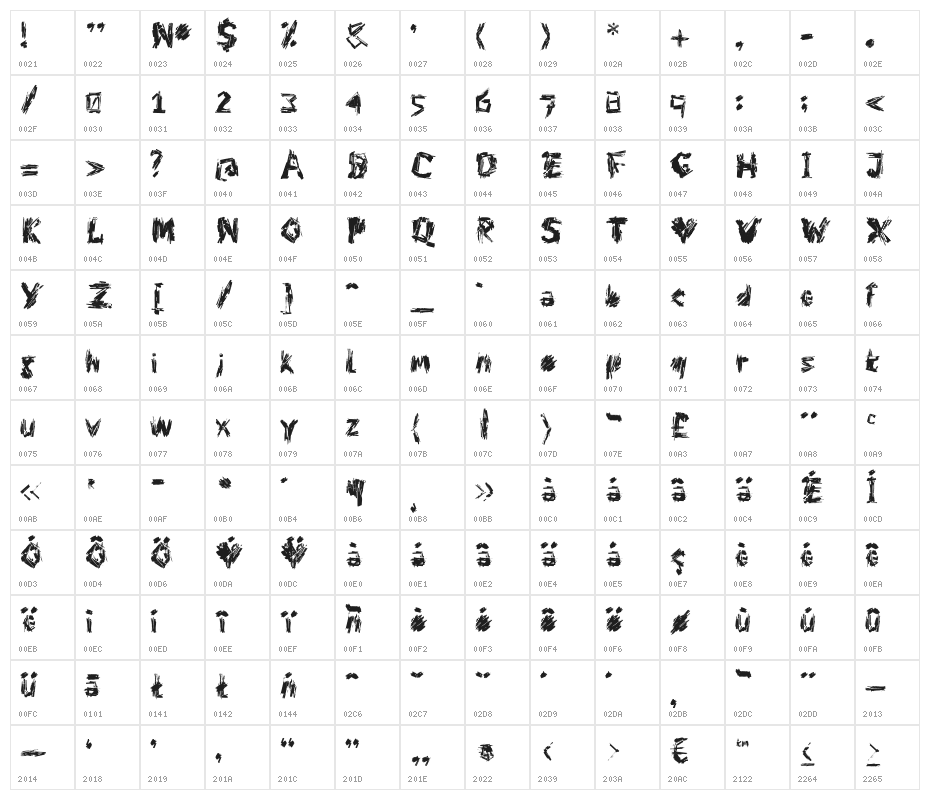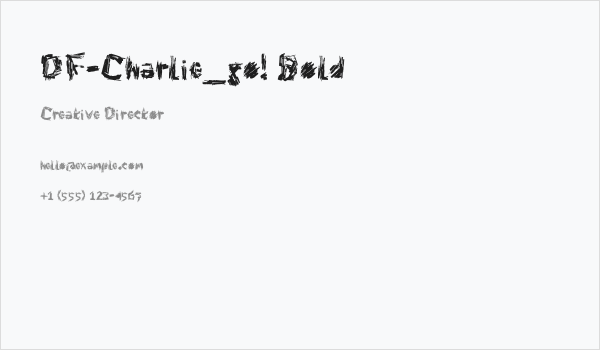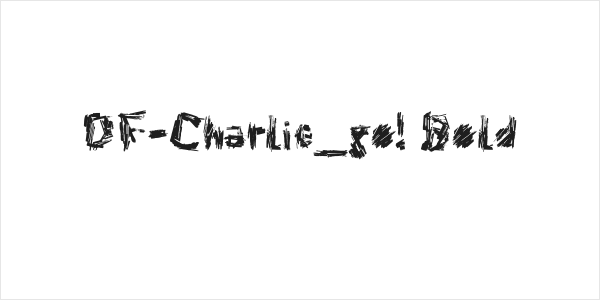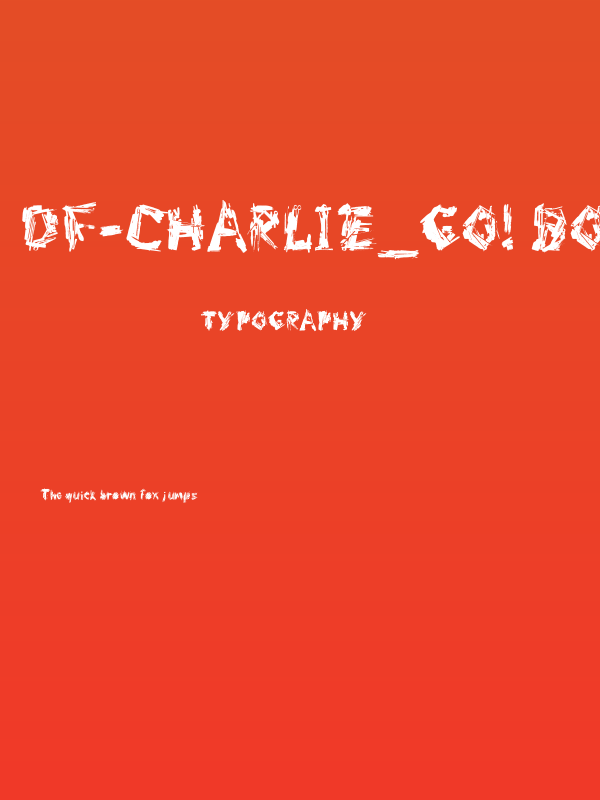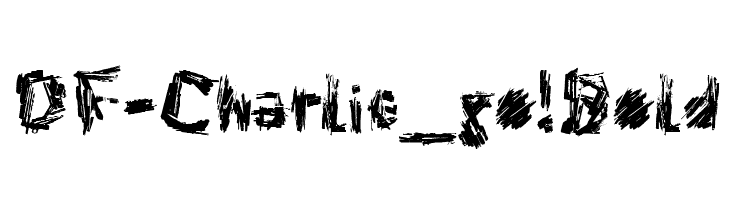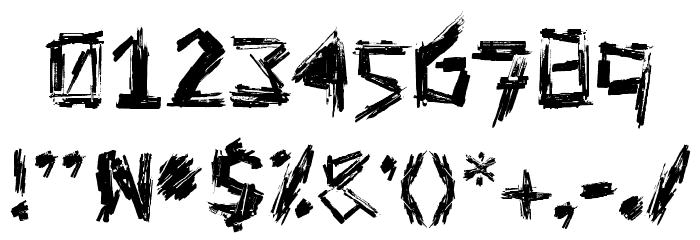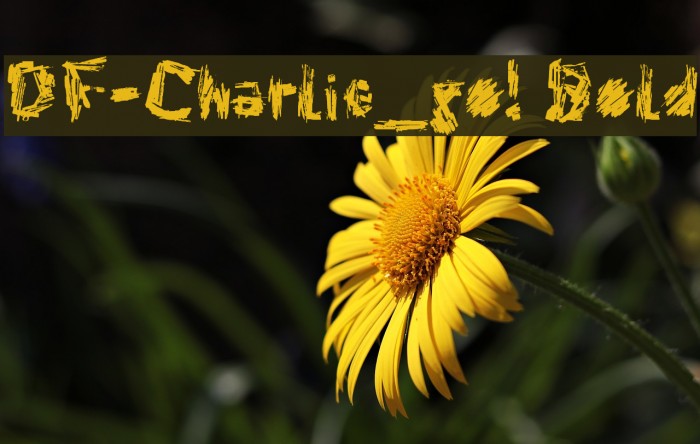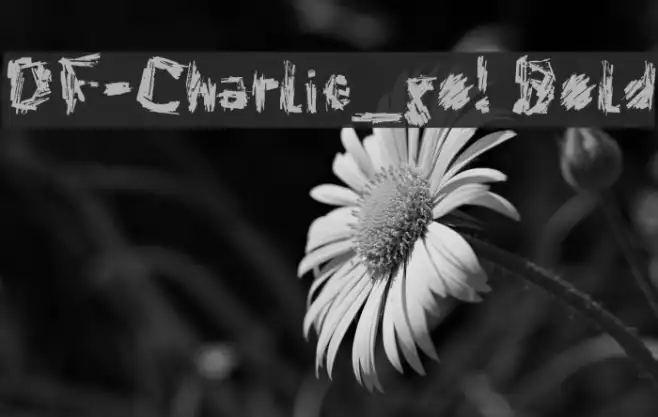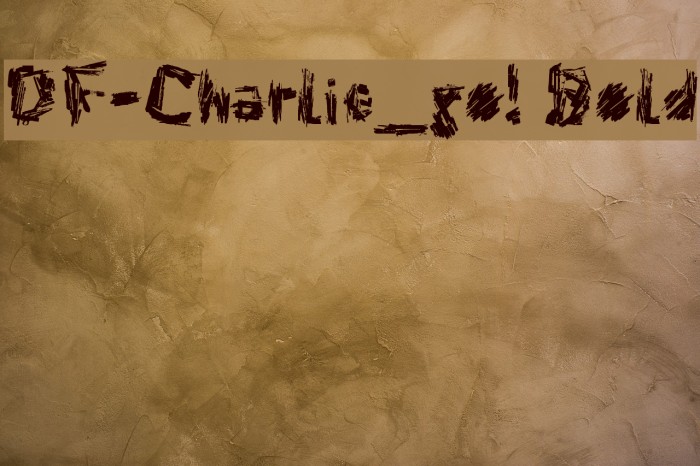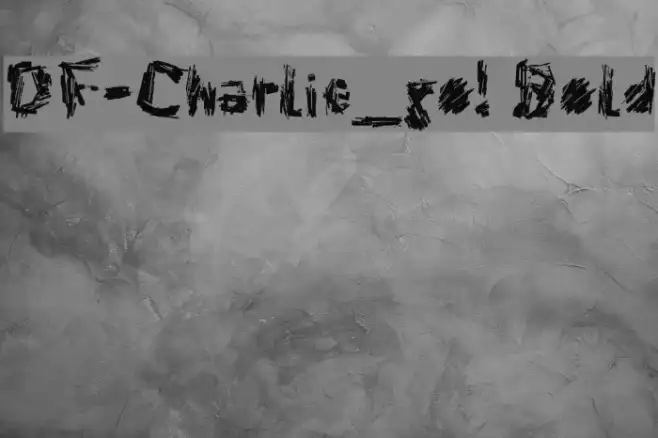
DF-Charlie_go! Bold Font
DF-Charlie_go! Bold Description
This font features a bold and edgy design with a distressed, grunge-like appearance. The characters are irregular and jagged, giving them a raw and dynamic feel. The strokes are thick and uneven, creating a sense of movement and energy. This style is reminiscent of graffiti or street art, making it stand out with its unique and rebellious aesthetic. The font maintains legibility despite its chaotic design, with each letter and number clearly distinguishable. The special characters follow the same rugged style, adding to the overall cohesive look.
| Overall Style | Modern, Grunge |
| Proposed Projects | Ideal for music album covers, streetwear branding, skateboarding graphics, or any project seeking a rebellious and edgy vibe. |